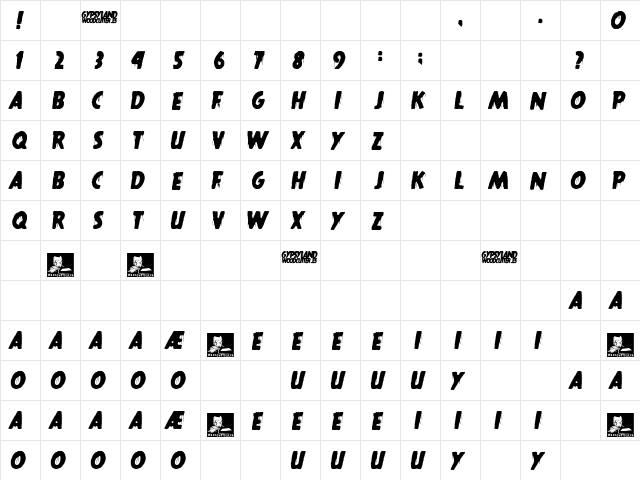
gypsyland Regular
Design Context for gypsyland Typeface
gypsyland is a composed and adaptable typeface that performs quietly and consistently across a wide range of design contexts.